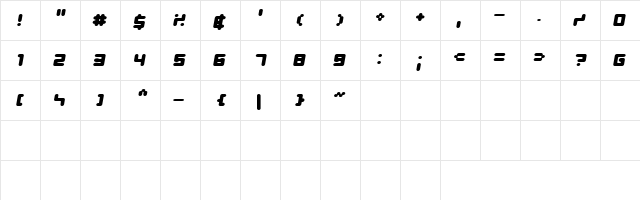
Shimshon Round Bold Oblique softens its letterforms with rounded terminals, giving it an approachable, friendly quality that works well in consumer-facing and digital contexts. The slanted form adds forward momentum and visual energy. Its bold stroke weight gives it real presence on the page.
Font Pairing: Pairs well with a rounded or humanist sans for body copy, maintaining the friendly tone without relying on Shimshon Round Bold Oblique to carry extended reading.
Pro Tip: Use Shimshon Round Bold Oblique for UI elements, app interfaces, and anywhere a friendly, approachable tone needs to be maintained without sacrificing clarity.